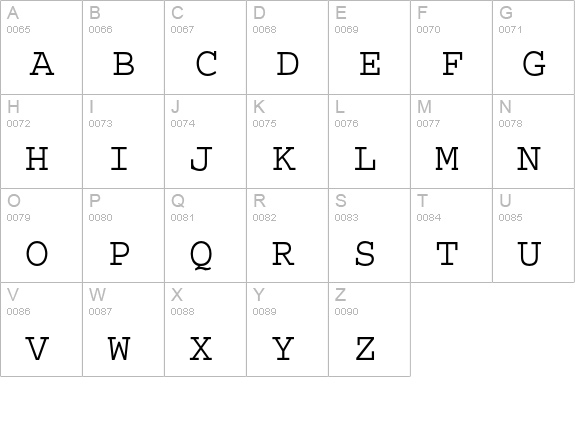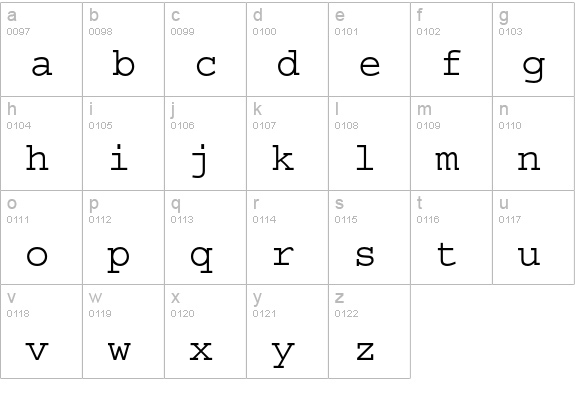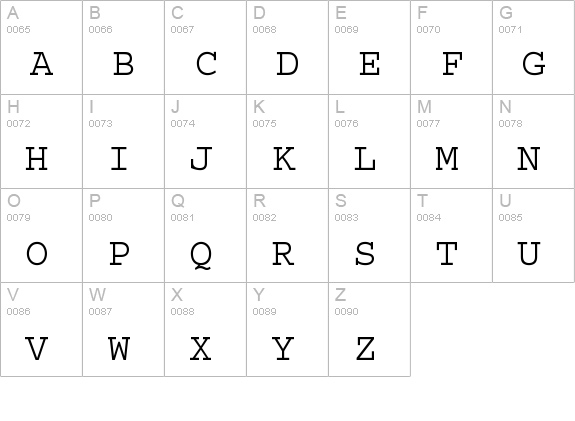
Courier Std Medium Font Details
Courier Std Medium is a balanced, medium-weight variant in the Courier typeface family \xE2\x80\x94 well suited to sub-headlines, navigation, and balanced editorial work.
Courier Std Medium is a classic and versatile font that exudes professionalism and clarity. With its clean lines and balanced proportions, this font is ideal for a wide range of design projects, from business documents to creative layouts. The medium weight strikes the perfect balance between boldness and readability, making it suitable for both headings and body text. What's even better is that Courier Std Medium is available for free download at FontsMarket.com. This means you can easily access this high-quality font to enhance your designs without any cost. Don't miss out on the opportunity to add this timeless font to your collection and elevate your projects with its timeless appeal.